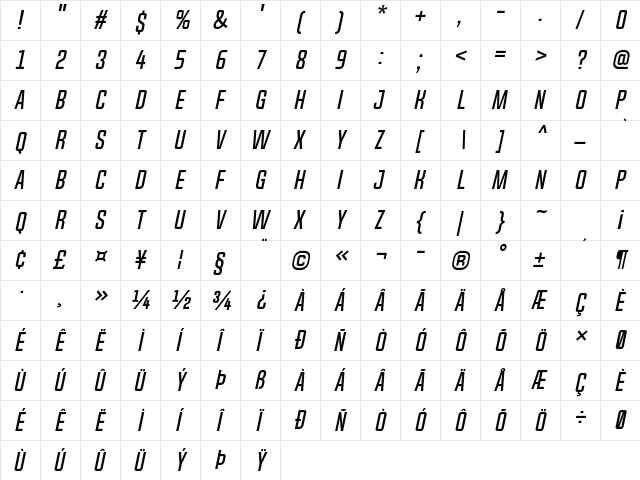
Chosence Italic
Design Context for Chosence Typeface
Chosence is a composed and adaptable typeface that performs quietly and consistently across a wide range of design contexts. The dynamic lean of this cut emphasises speed and emphasis in any layout.
Pro Tip: Try Chosence for annotation and caption copy alongside an upright companion — the contrast in angle creates a dynamic but ordered typographic system.